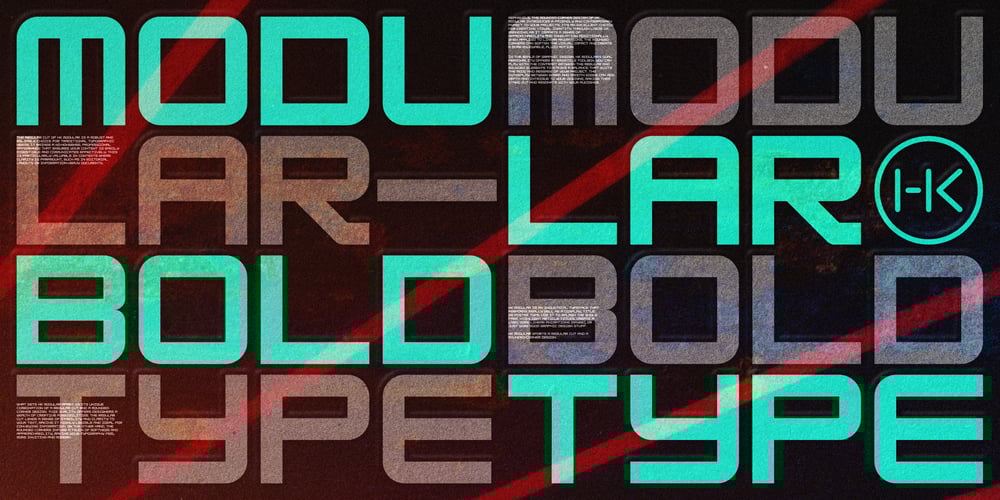
HK Modular
HK Modular font
HK Modular Font Family was designed by Alfredo Marco Pradil and published by Hanken Design Co.. HK Modular contains 2 styles and family package options. HK Modular stands out as a versatile and adaptable typeface that finds its strength in serving as an impactful display, title, or poster font. Its design allows for effective use in spanning entire pages, highlighting article titles, and designing logos.With a regular cut and rounded-corner design, HK Modular strikes a harmonious balance between sleekness and approachability. This dual nature of the typeface allows it to seamlessly blend sharp, defined edges with a touch of softness, making it suitable for a wide range of design contexts.